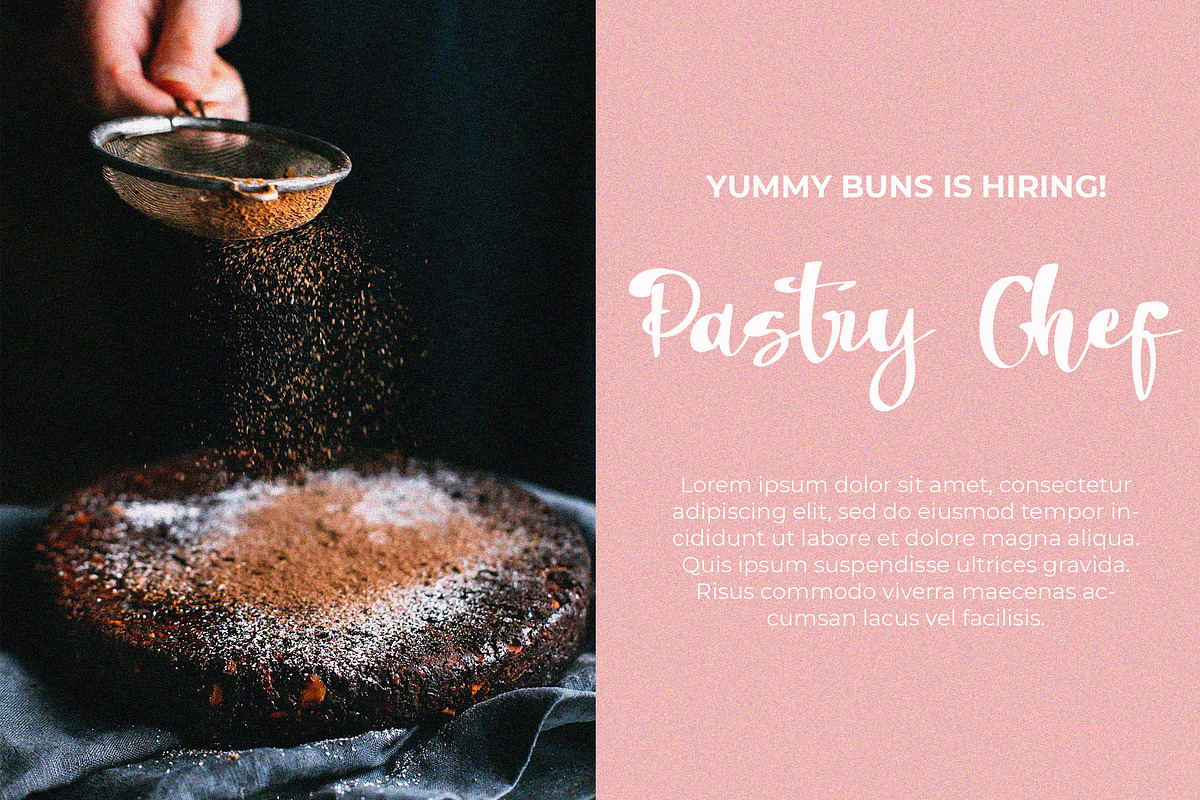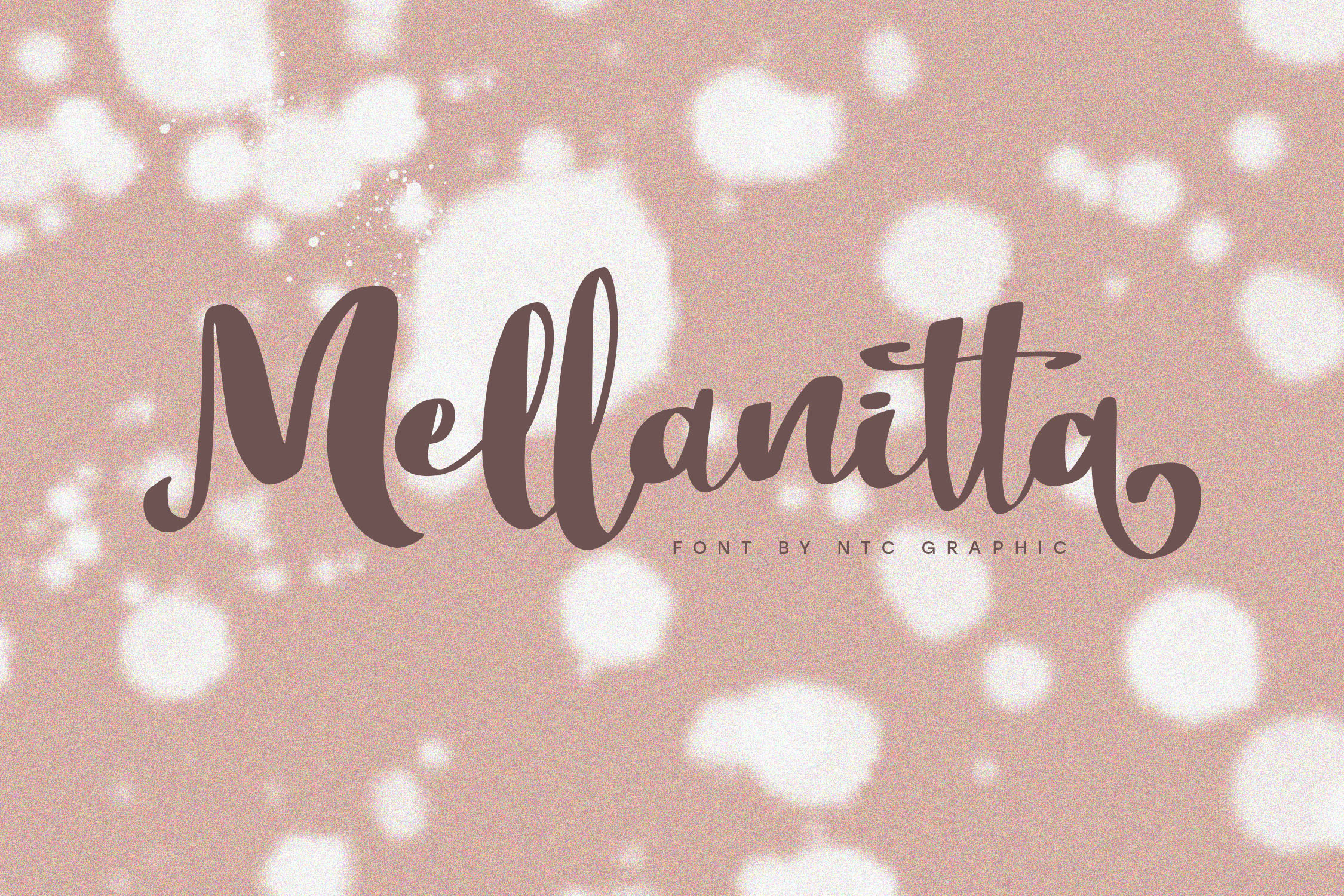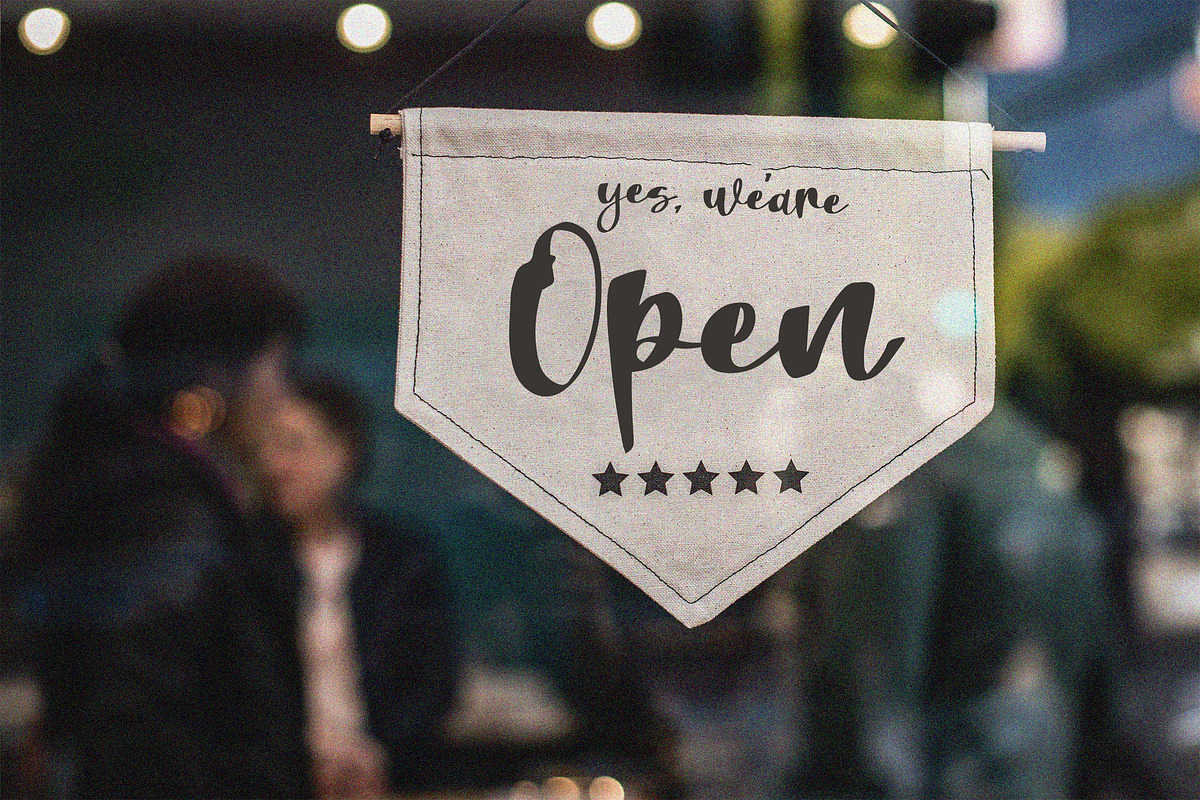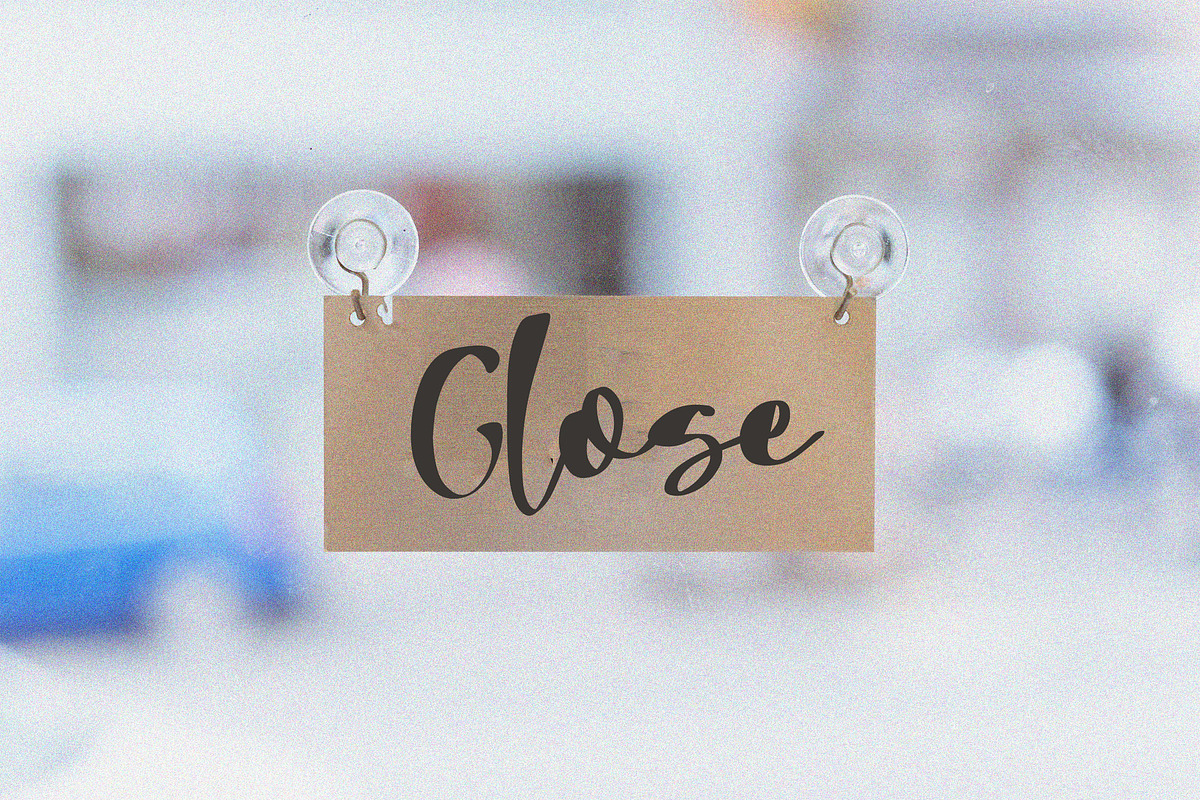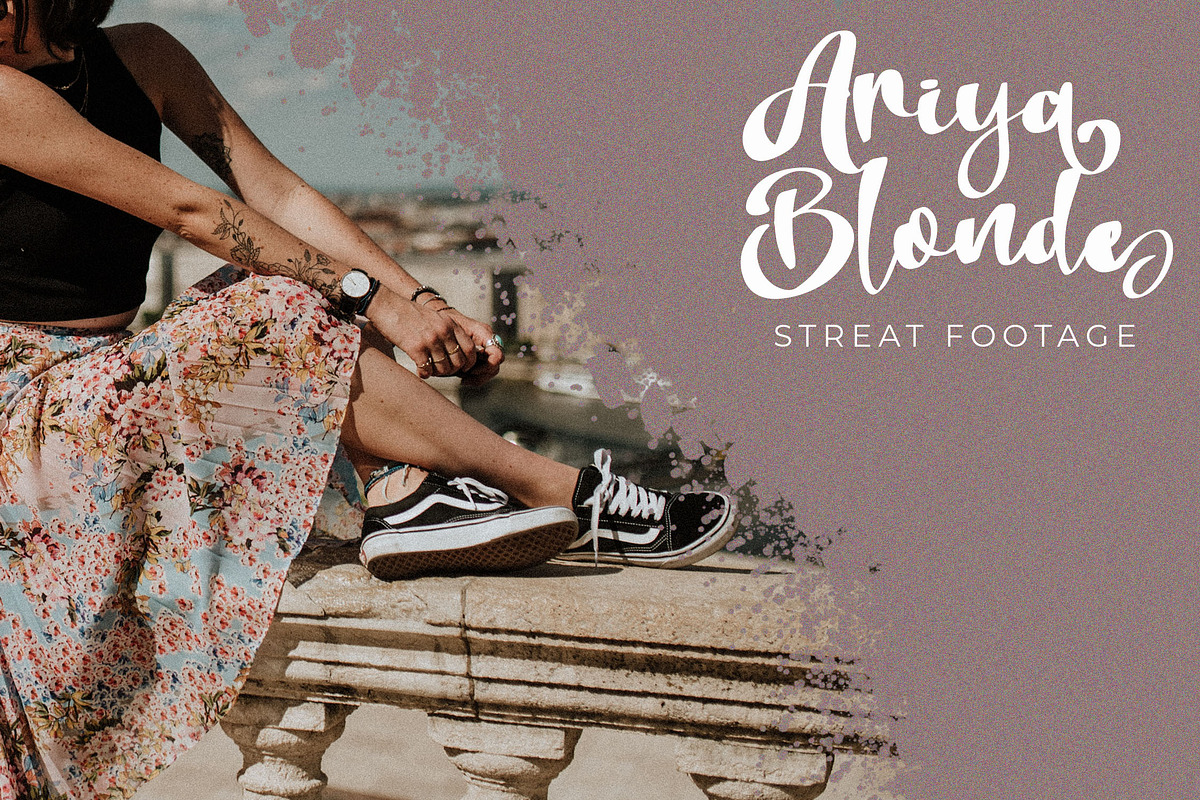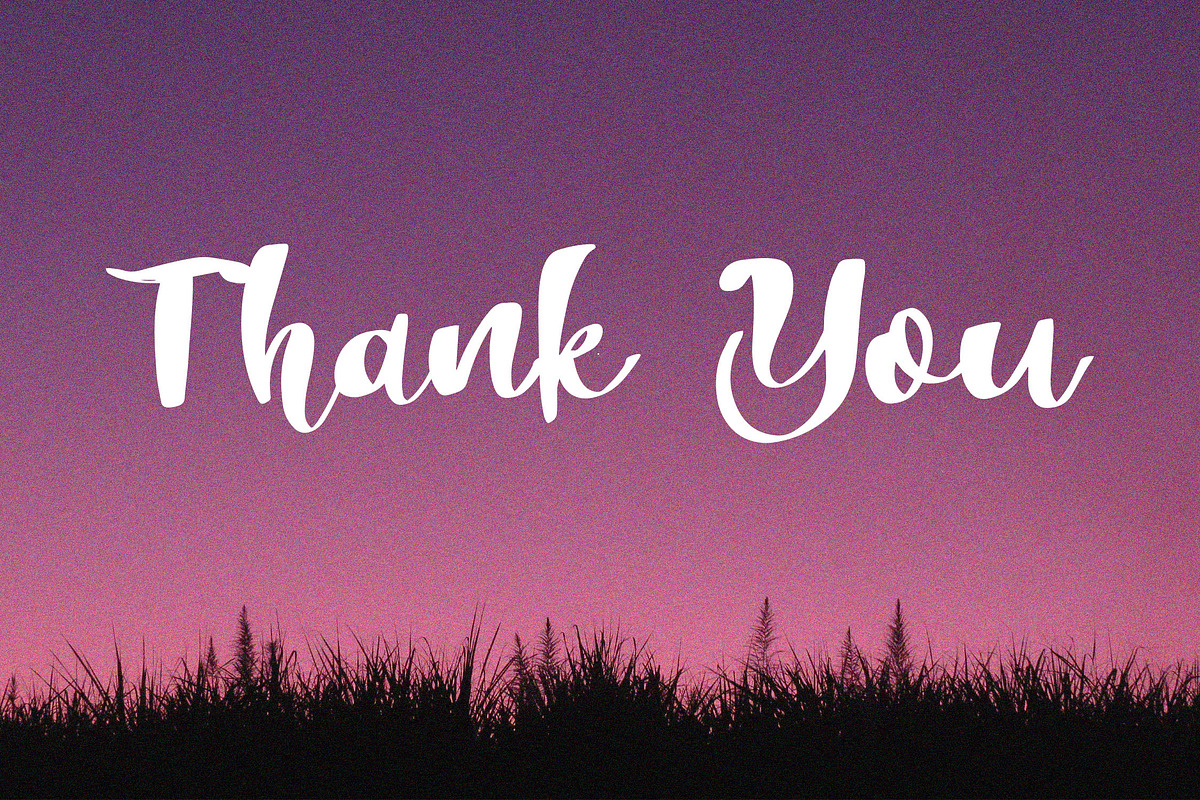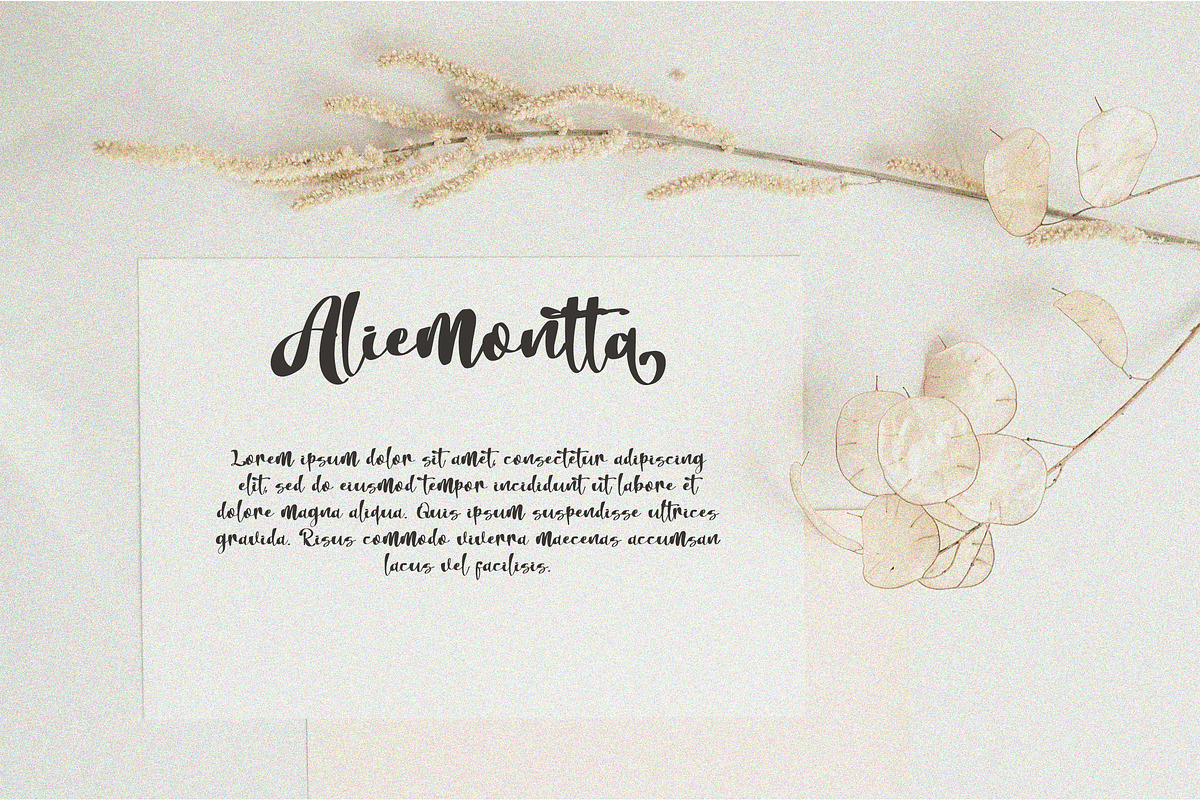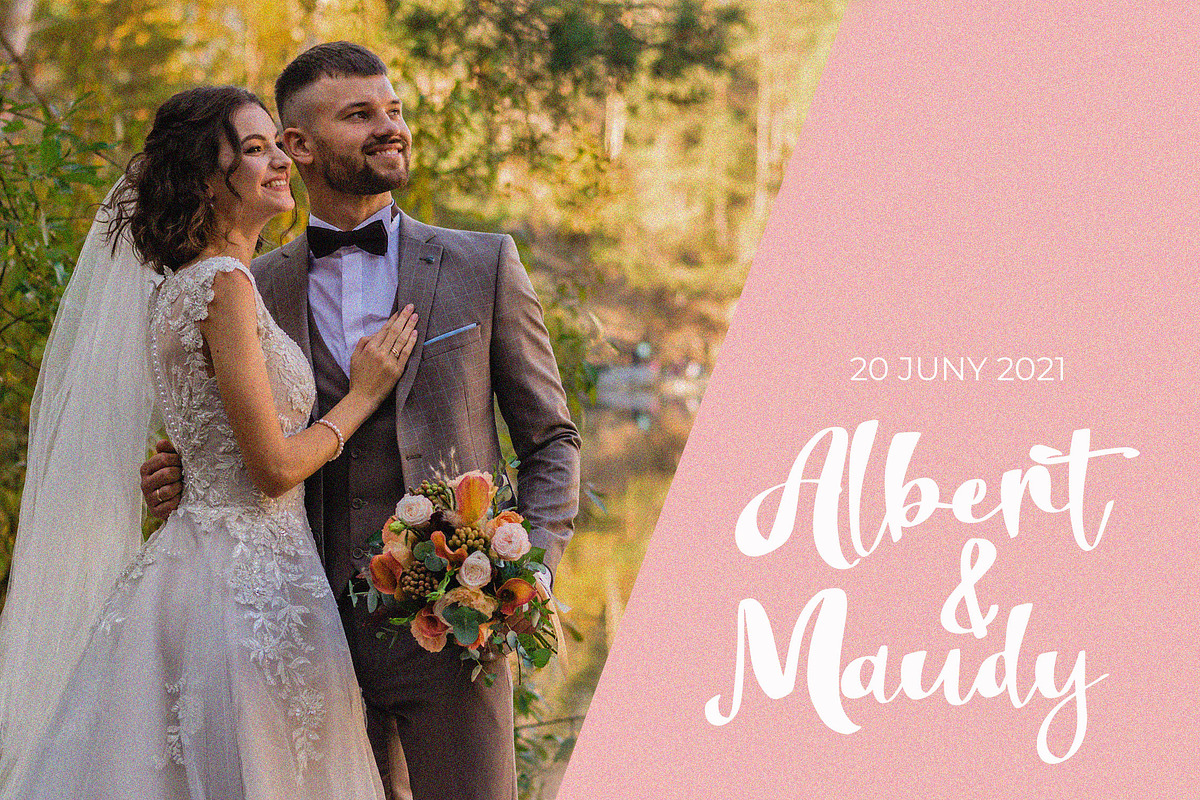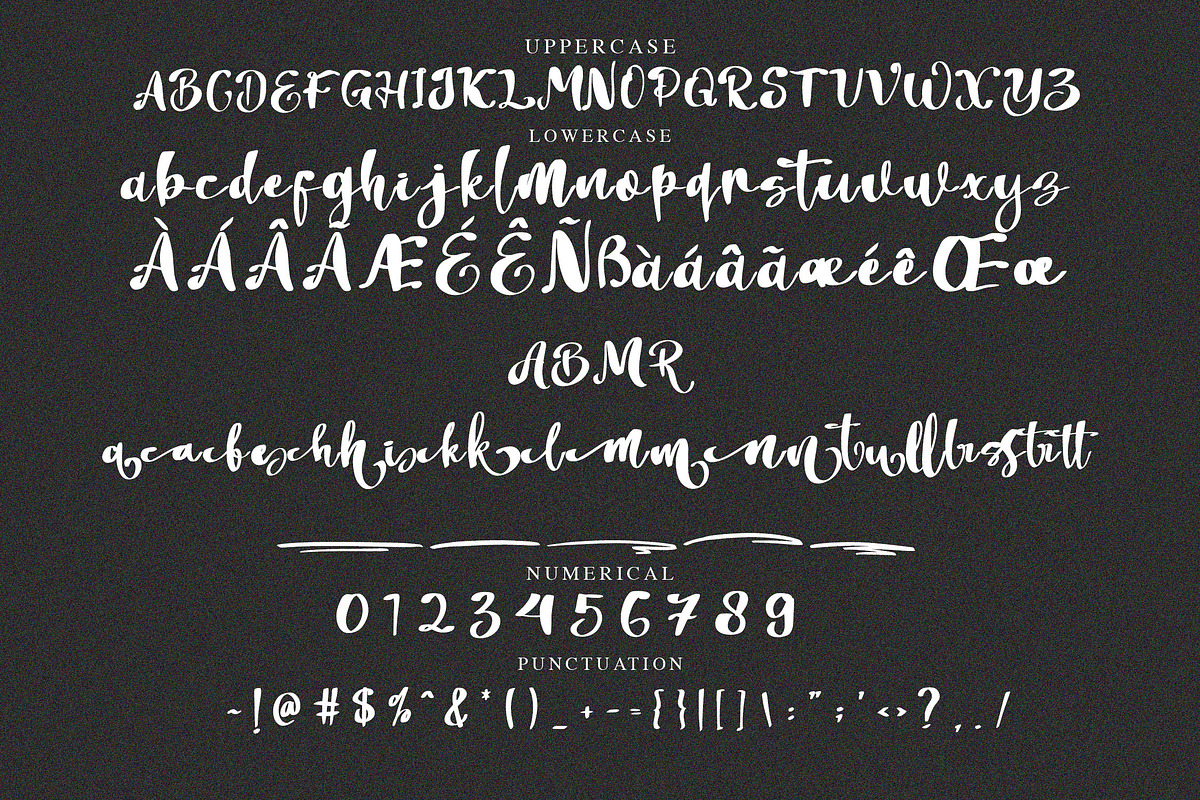
Mellanitta Brush Script Font
Mellanitta is a beautiful brush script font with feminine style. Is a font style that is made with scratches and curvature shapes font characters are very beautiful. Can be applied to support the graphic appearance of the product to be more attractive and unique.
- Stylistic Alternate